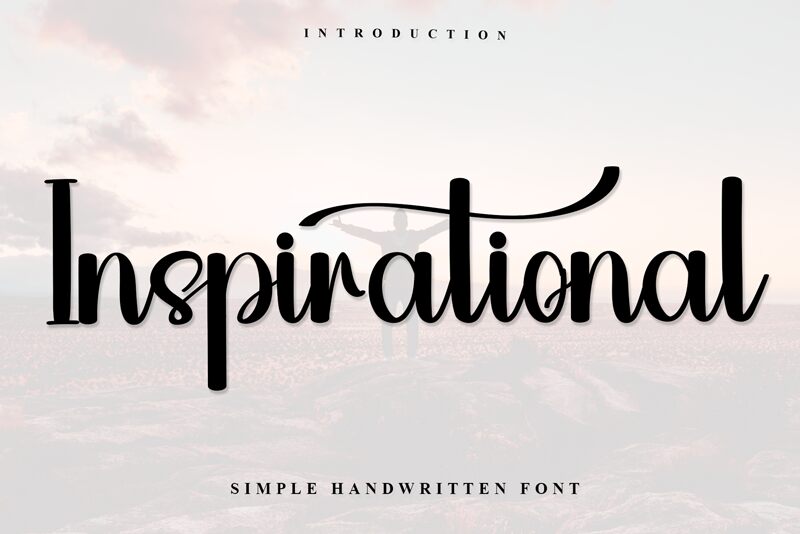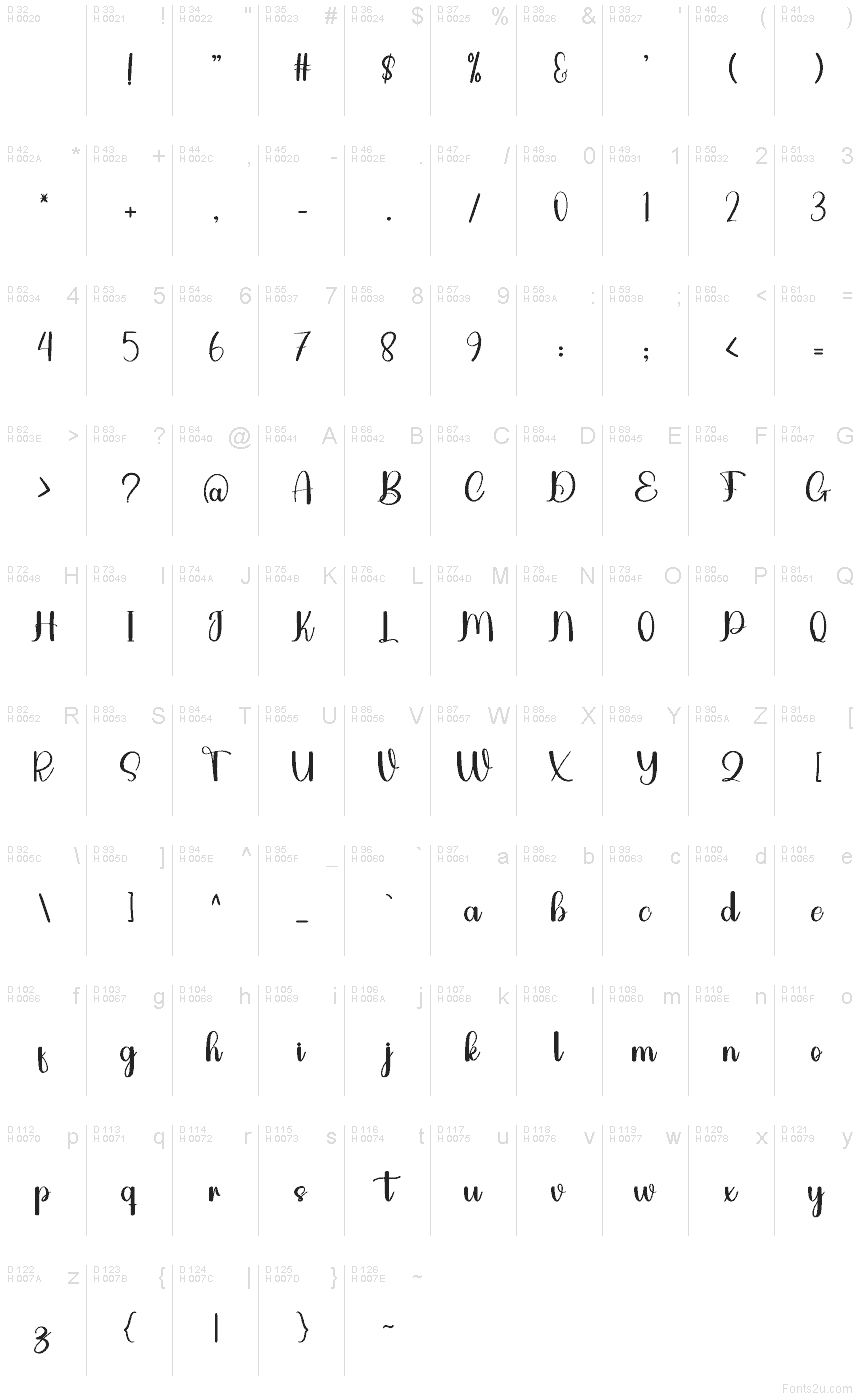
Inspirational
Inspirational font by Inermedia Studio is a free brush script typeface that looks like it was painted in one graceful, unbroken motion. Tall, slender letters, smooth rounded curves, and soft, inky strokes give it a handwritten feel that’s both friendly and polished. The rhythm of the script is relaxed but steady, so words feel airy rather than cramped—a gentle, modern calligraphy look without the fuss.
Using Inspirational font, your designs instantly pick up the warmth of a personal note or hand-lettered sign. It works beautifully for wedding invitations, inspirational quotes, social media posts, product packaging, greeting cards, and logo wordmarks with a romantic twist. This free font shines at larger sizes where its sweeping forms can breathe; pair it with a clean sans-serif for body text to keep layouts fresh and easy to read.